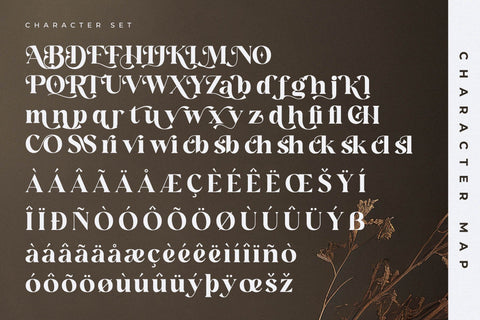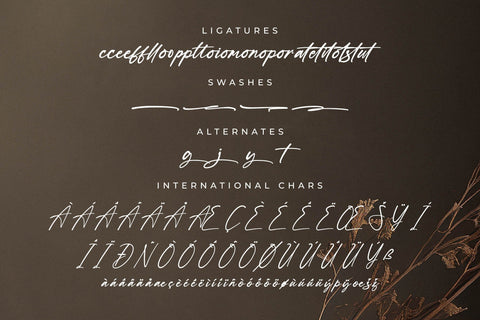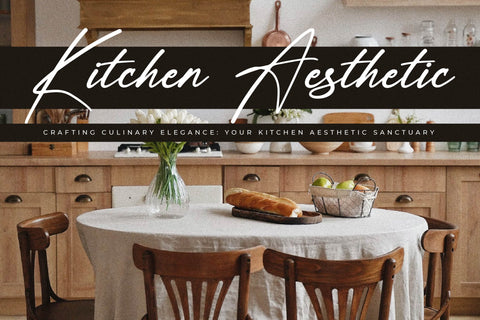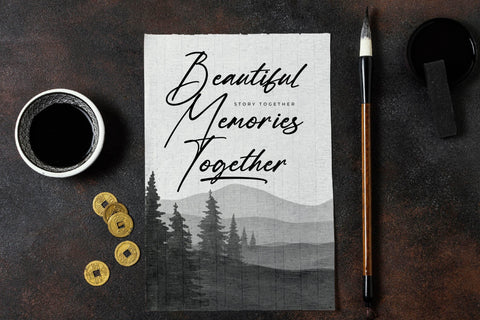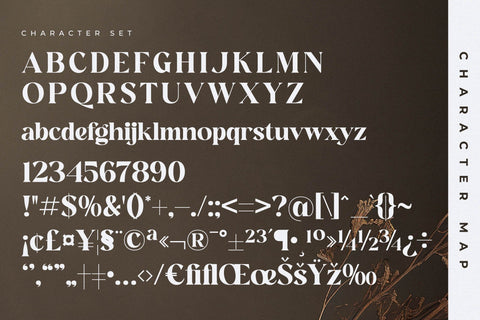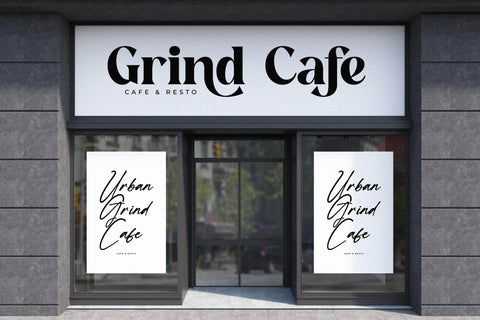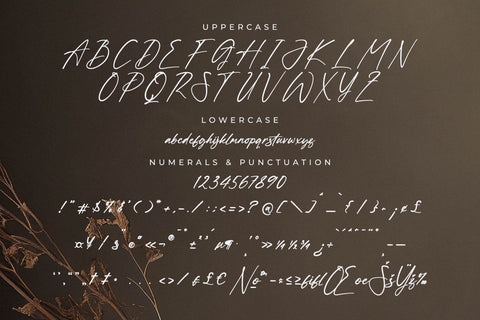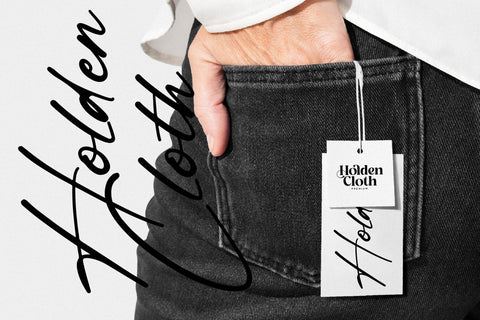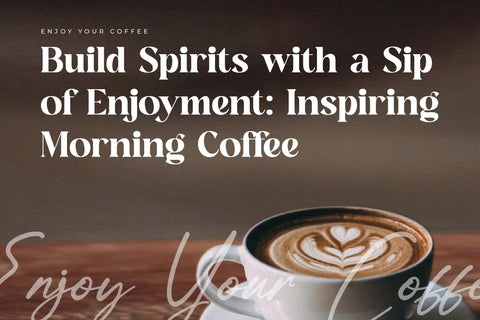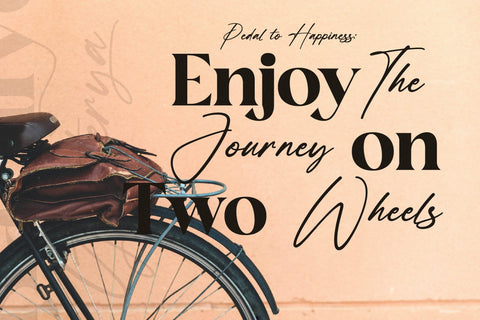
Hanfiye Guesterya Font Duo
Proudly present Hanfiye Guesterya Font Duo , created by Storytype,
A serif and script typeface that has own unique style & modern look.